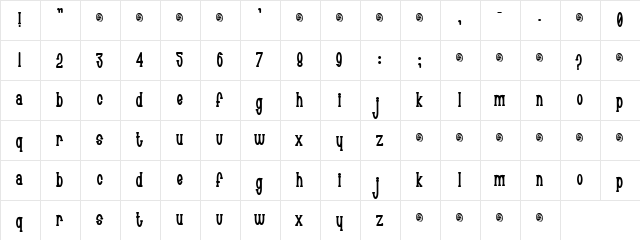
Pejawar Regular
Design Context for Pejawar Typeface
Pejawar offers clean, dependable letterforms without strong stylistic allegiance, making it a practical choice for designers who need flexibility.